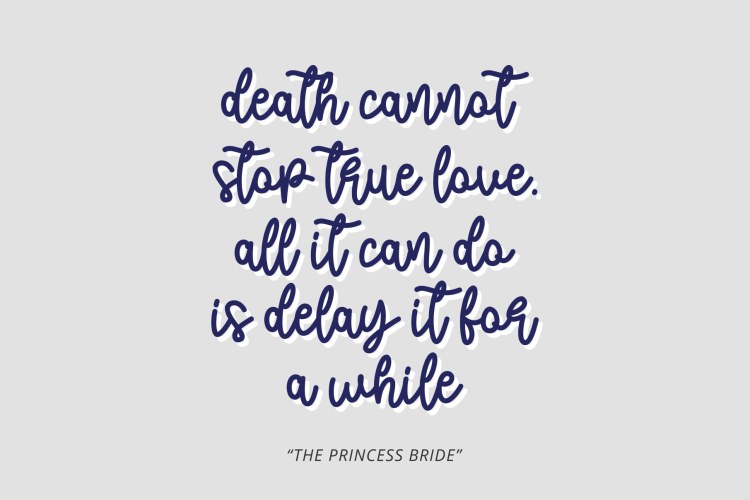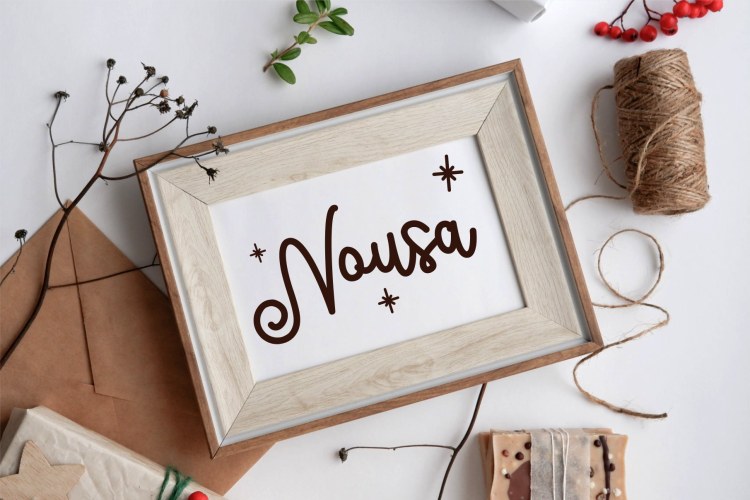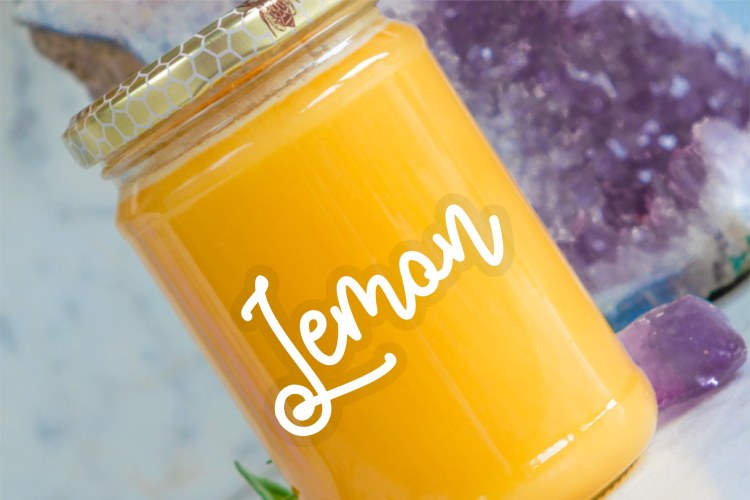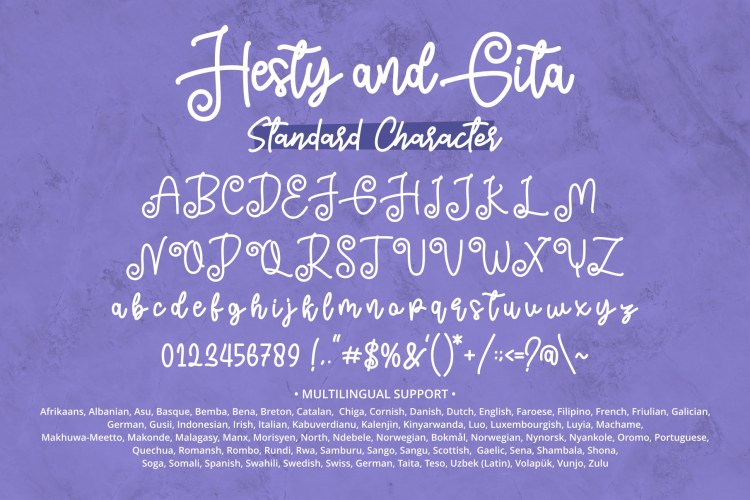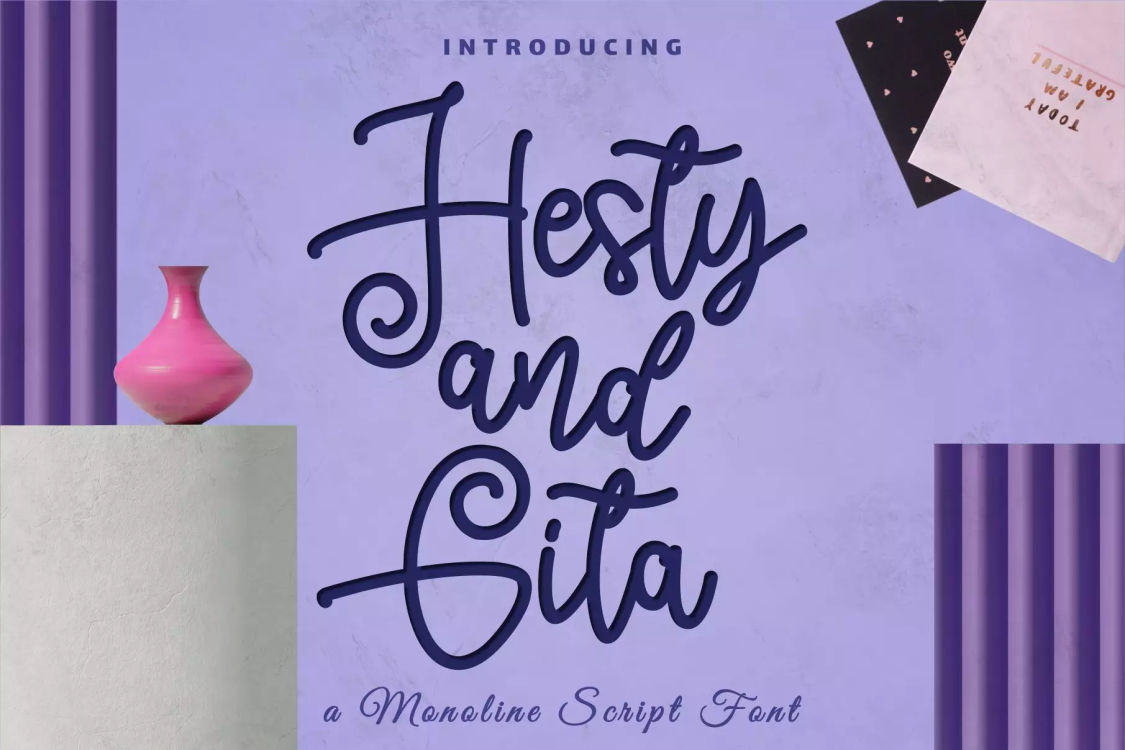
Hesty and Gita Script Font
Hesty and Gita is a simple and delicate script font. This font is perfect for your craft projects, Christmas decor, farmhouse signs, poster, t-shirtS and more. Have fun…
Hesty and Gita is a simple and delicate script font. This font is perfect for your craft projects, Christmas decor, farmhouse signs, poster, t-shirtS and more. Have fun with this beautiful font and explore its endless variations.
Where Hesty and Gita Script Font works best
Hesty and Gita Script Font brings a personal, handwritten warmth to invitations, menus and place cards.
Craft brands — coffee, cosmetics, bakery — use scripts like Hesty and Gita Script Font for signature-style logos and labels.
Pair Hesty and Gita Script Font with a plain sans for quotes, stories and Pinterest pins that feel handmade.
What is Hesty and Gita Script Font good for?
Hesty and Gita Script Font is a Script And Handwritten typeface tagged Elegant, Handwritten, Poster, Professional. It works well for headlines, logos, posters, social media graphics and branding projects that need a distinctive script and handwritten look.